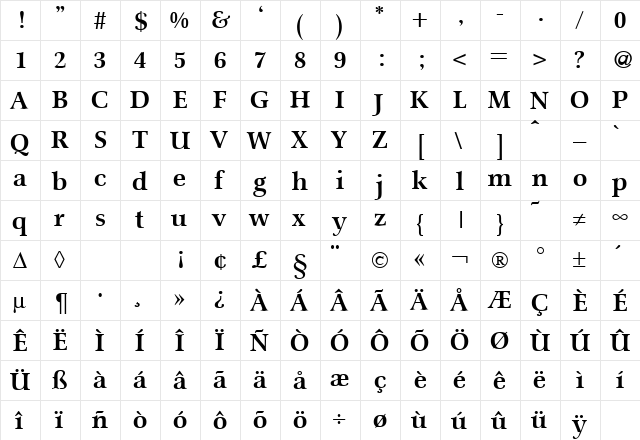
Scenic Bold
Design Context for Scenic Typeface
Scenic is a composed and adaptable typeface that performs quietly and consistently across a wide range of design contexts. The heavy weight commands attention and anchors typographic hierarchies.